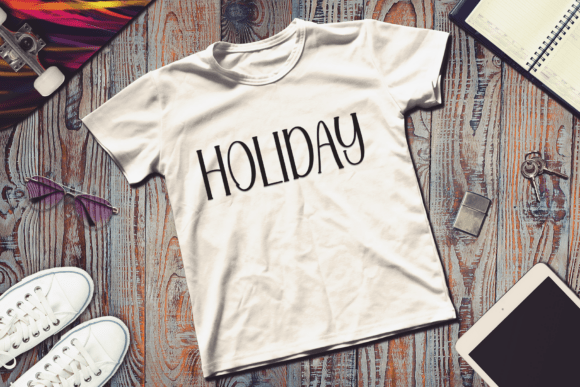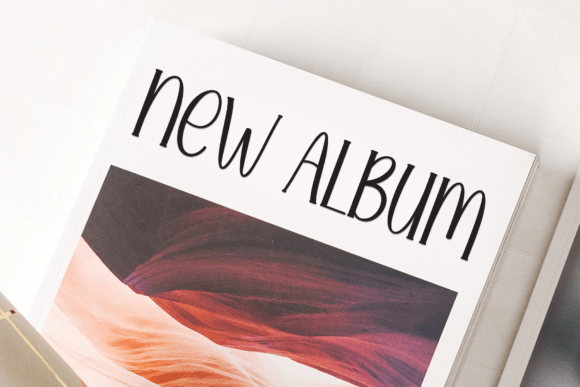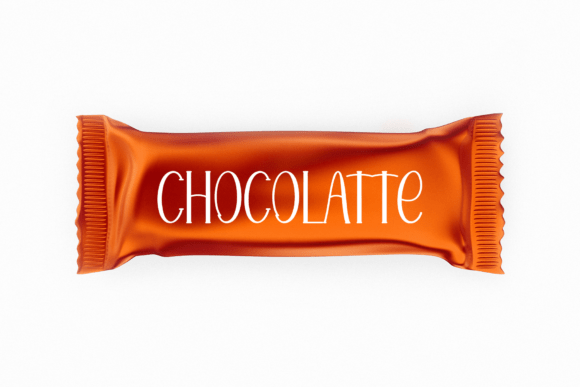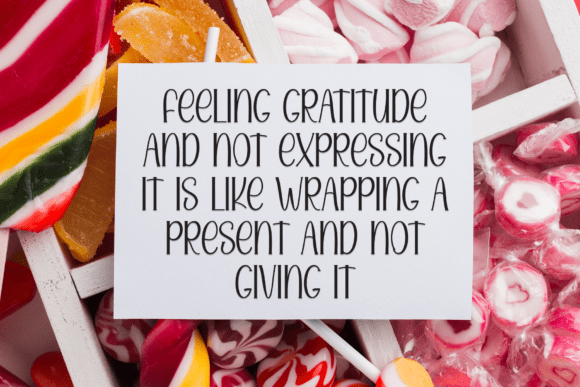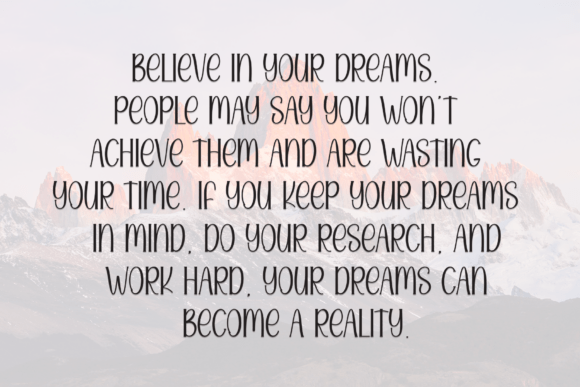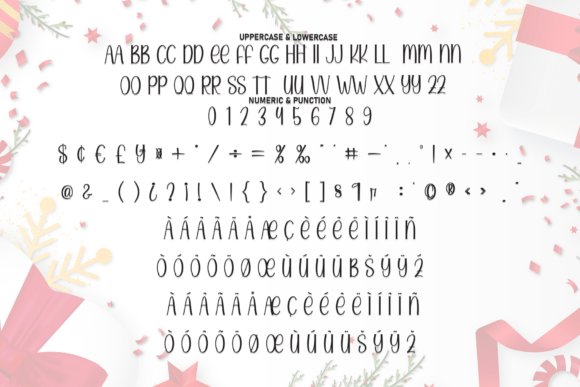
Hello Christmas Font: A Perfect Blend of Simplicity and Friendliness
Are you looking for a font that can add a warm and inviting touch to your designs? Look no further than the Hello Christmas font. This casual and neat display font is perfect for designers and crafters who want to create stunning branding, headlines, packaging, and digital content. In this article, we’ll dive into the features and benefits of the Hello Christmas font and explore how it can elevate your designs.
What is Hello Christmas Font?
Hello Christmas is a modern display font that combines simplicity with a friendly, approachable vibe. It features clean lines, balanced letterforms, and subtle rounded edges, making it a perfect representation of modern handwritten typography with a polished finish. The font’s design is versatile and can be used for a wide range of applications, from branding and headlines to packaging and digital content.
Key Features of Hello Christmas Font
- Clean Lines: The font features clean lines that give it a crisp and modern look.
- Balanced Letterforms: The letterforms are balanced, making the font easy to read and understand.
- Subtle Rounded Edges: The subtle rounded edges add a touch of friendliness and approachability to the font.
- Versatile Style: The font’s style is versatile and can be used for a wide range of applications.
Benefits of Using Hello Christmas Font
The Hello Christmas font offers several benefits to designers and crafters. Some of the benefits include:
- Warm and Inviting: The font adds a warm and inviting touch to any design, making it perfect for creating a friendly and approachable brand image.
- Crisp Structure: The font’s crisp structure makes it easy to read and understand, even at small sizes.
- Versatility: The font’s versatility makes it suitable for a wide range of applications, from branding and headlines to packaging and digital content.
- Modern Look: The font’s modern look makes it perfect for designers and crafters who want to create modern and trendy designs.
How to Use Hello Christmas Font
The Hello Christmas font is easy to use and can be incorporated into a wide range of designs. Here are some ideas on how to use the font:
- Branding: Use the font to create a friendly and approachable brand image.
- Headlines: Use the font to create stunning headlines that grab attention.
- Packaging: Use the font to create eye-catching packaging that stands out on store shelves.
- Digital Content: Use the font to create engaging digital content, such as social media posts and blog articles.
Tips for Pairing Hello Christmas Font with Other Fonts
Pairing the Hello Christmas font with other fonts can create a unique and visually appealing design. Here are some tips for pairing the font with other fonts:
- Pair with a Serif Font: Pairing the Hello Christmas font with a serif font can create a nice contrast and add depth to your design.
- Pair with a Script Font: Pairing the Hello Christmas font with a script font can create a beautiful and elegant design.
- Experiment with Different Font Sizes: Experimenting with different font sizes can create a visually appealing design and add hierarchy to your content.
The Hello Christmas font is a perfect blend of simplicity and friendliness, making it a great addition to any design. Its clean lines, balanced letterforms, and subtle rounded edges make it a versatile font that can be used for a wide range of applications. With its warm and inviting touch, the font is perfect for designers and crafters who want to create stunning branding, headlines, packaging, and digital content. So, go ahead and give the Hello Christmas font a try and see how it can elevate your designs.